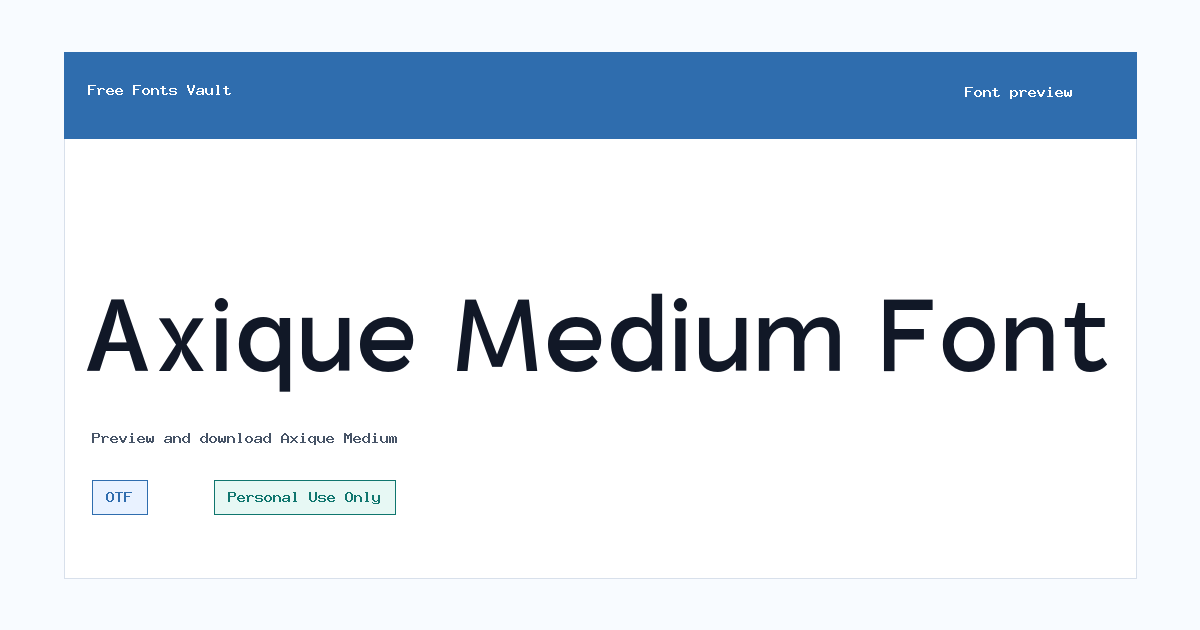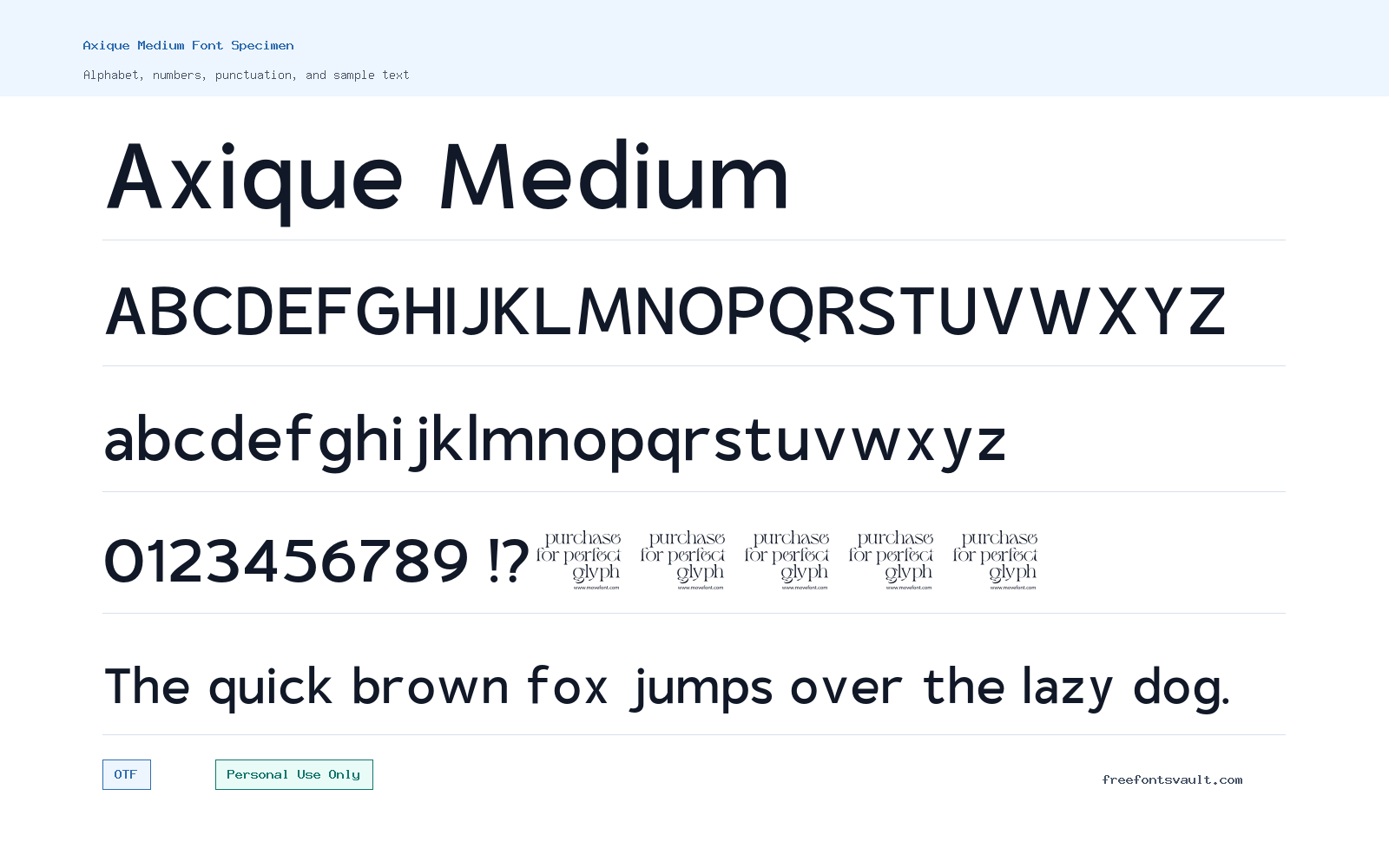
Axique Medium
Axique Medium font.
Axique Medium is a medium-weight sans serif font for visitors who want a clean, straightforward type style to test in titles, short text, and simple design layouts.
About Axique Medium
Axique Medium uses a normal style with a 500 weight, giving it more presence than a light face without becoming too heavy. That makes it useful when you want text to feel clear and stable in a preview, especially for headings, labels, nameplates, and short promotional lines. The font file is in OTF format, so it should work in many desktop design apps that support OpenType fonts.
Because the only listed variant is the regular medium style, it is best treated as a focused display and layout choice rather than a full text family. Try it in the preview with your own words, then check spacing, punctuation, numbers, and mixed-case lines. If your project needs long paragraphs, bold emphasis, italics, or many hierarchy levels, pair it with a broader sans serif family that has more weights.
- Medium 500 weight for firm headings and short text without an overly bold look.
- Sans serif structure suited to clean layouts, labels, covers, and digital mockups.
- Personal posters, quote graphics, social images, and title-based artwork.
- Logo drafts, branding mockups, packaging tests, and presentation headings.
- Short interface labels, thumbnails, banners, and other compact text settings.
For best results, test Axique Medium at the exact size you plan to use. Check uppercase words, lowercase spacing, numbers, and special characters in the preview. Keep line lengths short, add enough letter spacing only if the design needs it, and avoid using it as the only typeface for dense reading. Pair it with a simple body font when you need longer descriptions or article text.
What kind of projects should I test it with?
Start with headings, short names, posters, social graphics, and mockups. For long reading text, test carefully or pair it with a wider font family.